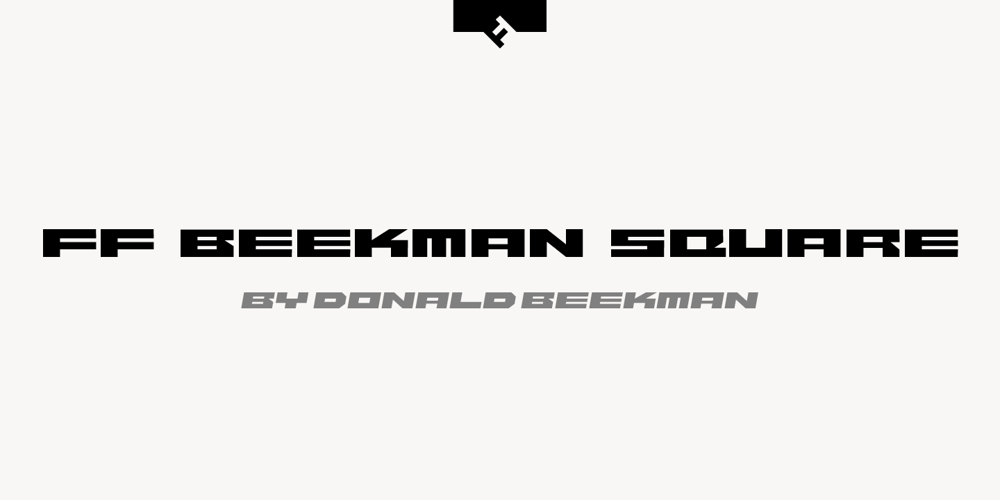
FF Beekman Square
FF Beekman Square Font Family was designed by Donald Beekman and published by FontFont. FF Beekman Square contains 6 styles and family package options. Dutch type designer Donald Beekman created this display FontFont in 1999. The family has 6 weights, ranging from Light to Bold (including italics) and is ideally suited for film and tv, music and nightlife as well as poster and billboards. FF Beekman Square provides advanced typographical support with features such as ligatures and case-sensitive forms. It comes with proportional lining figures.